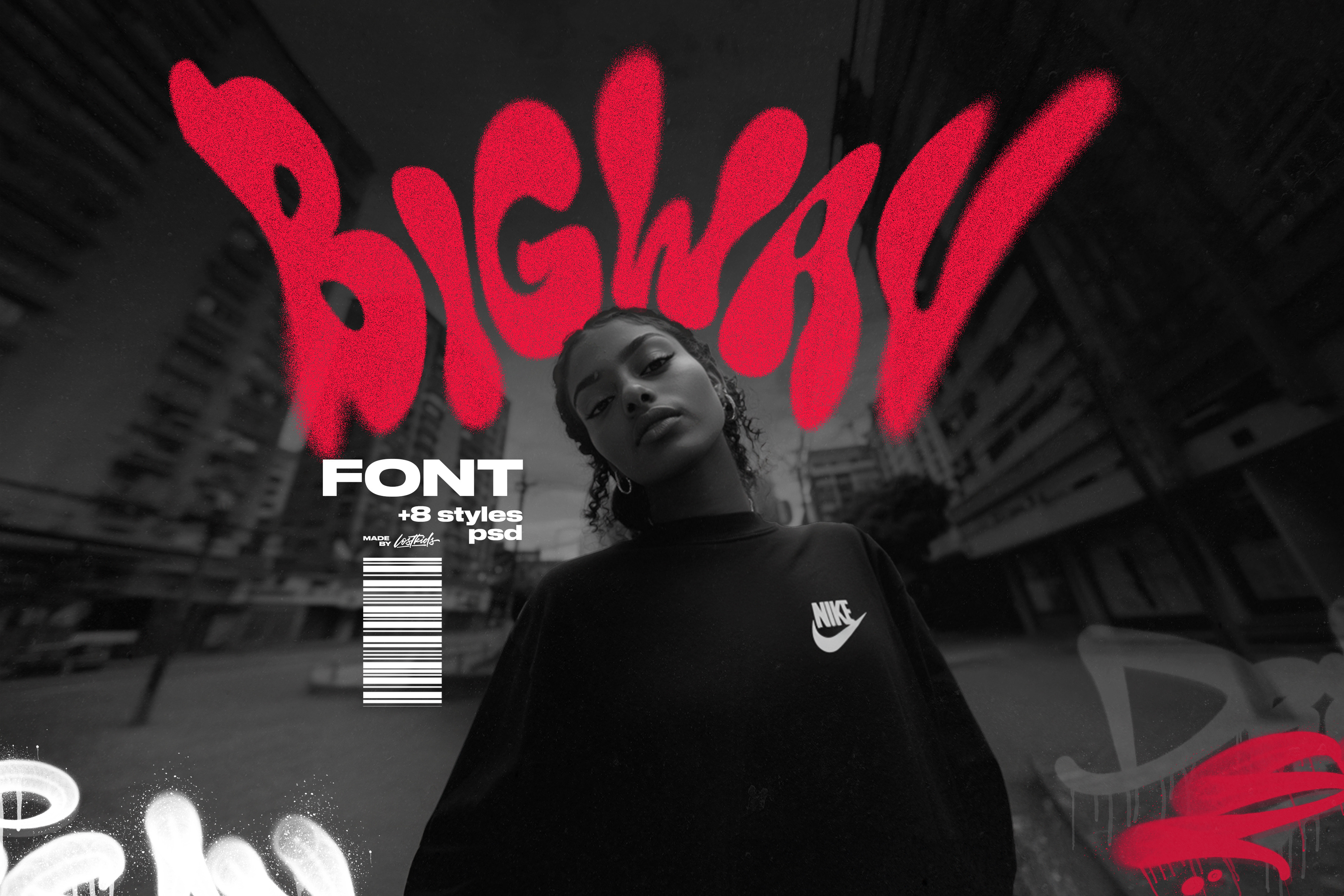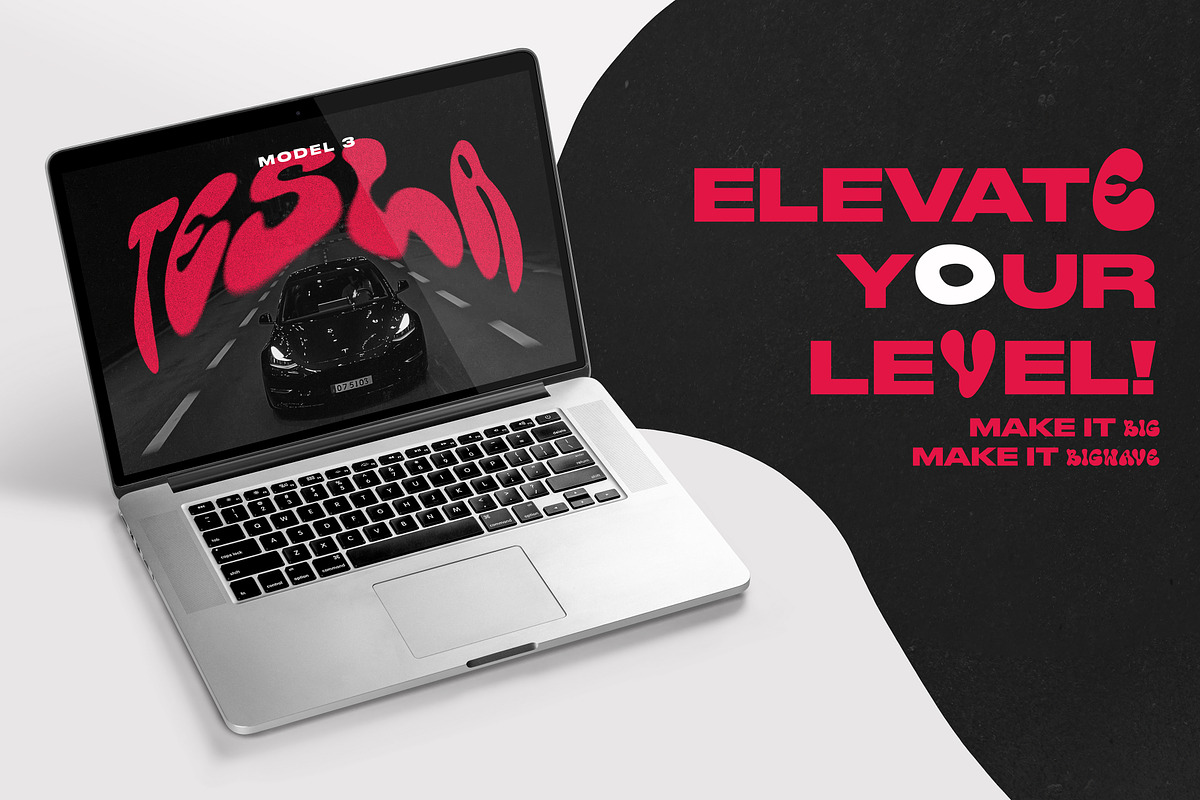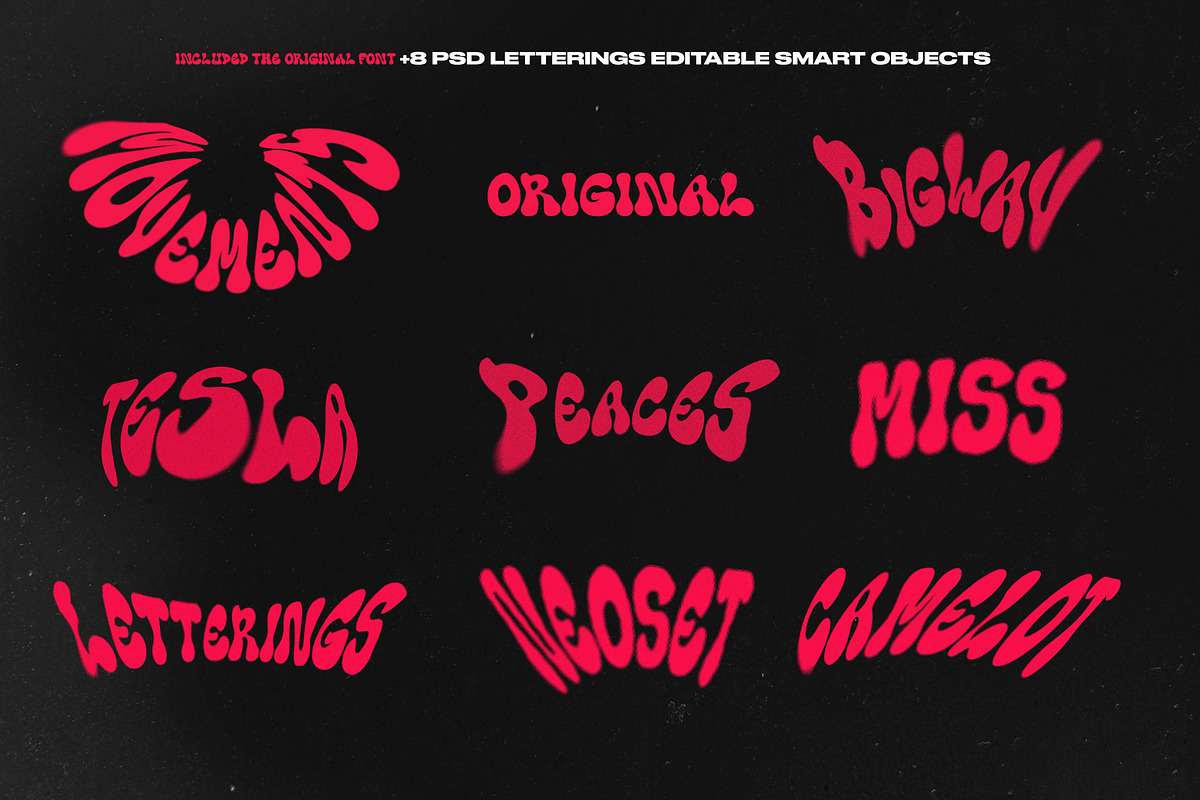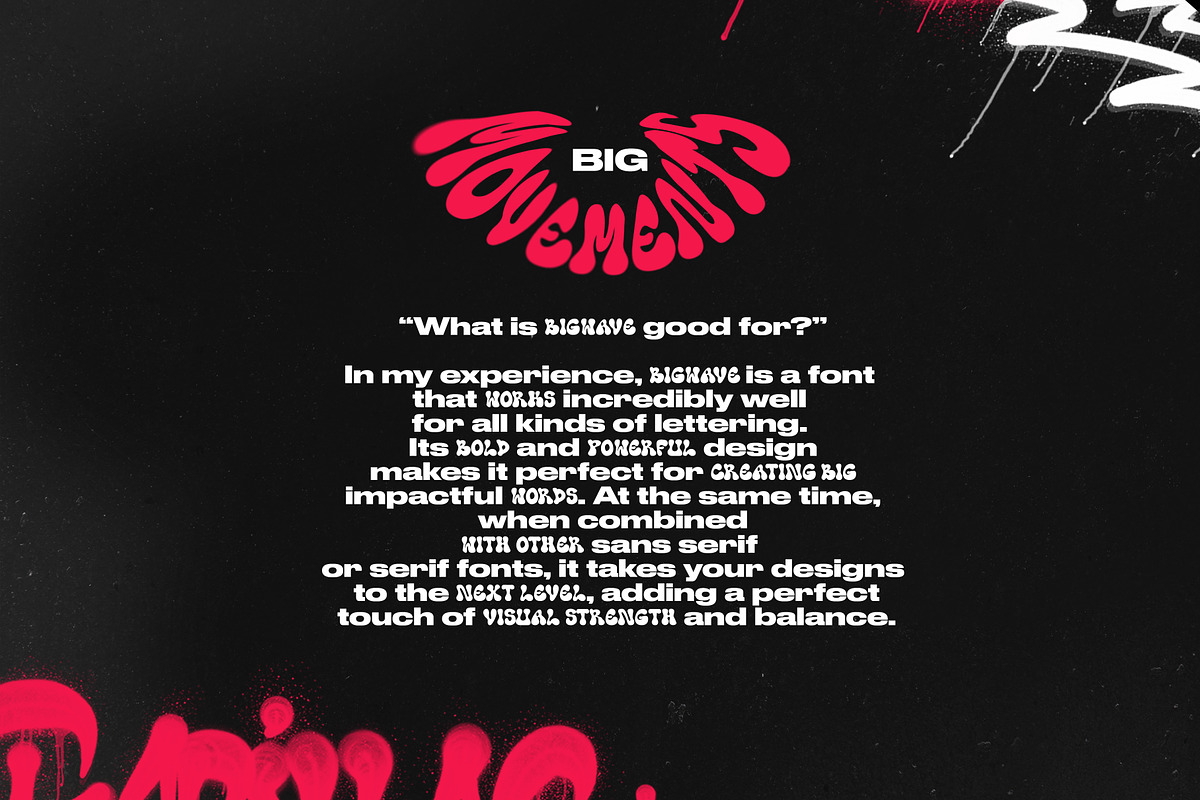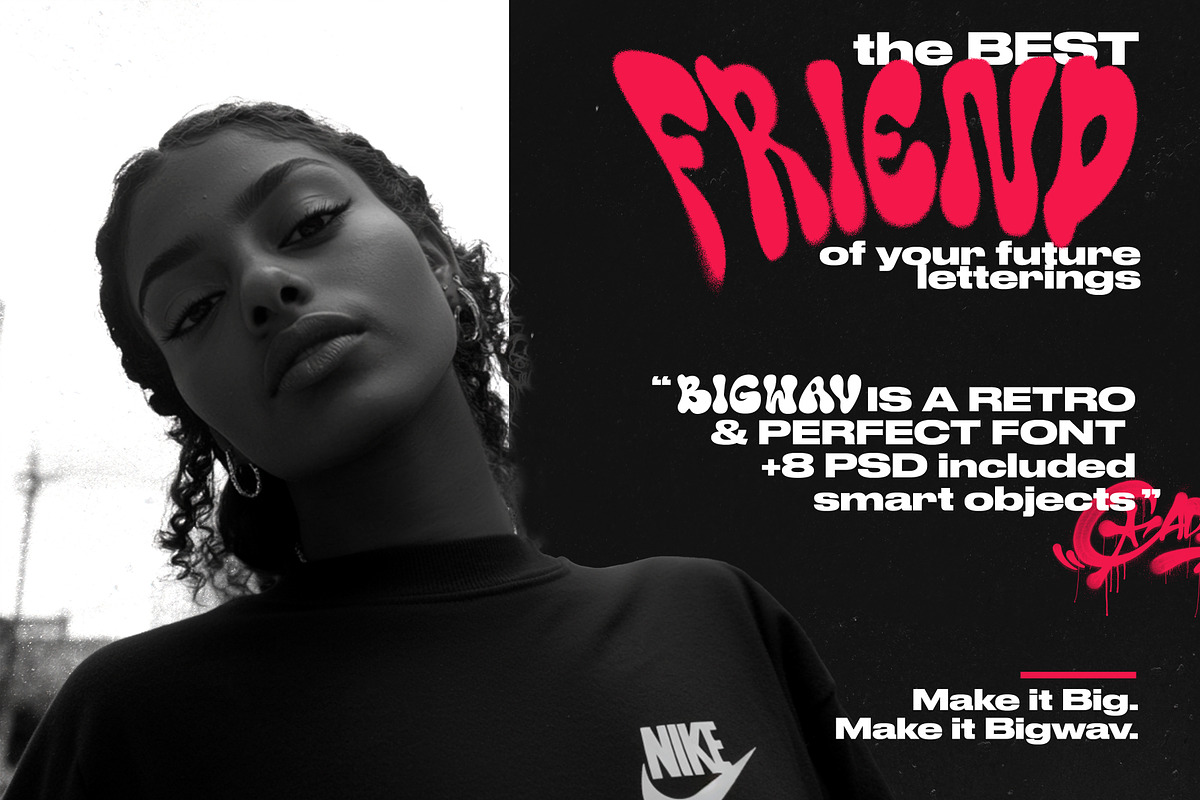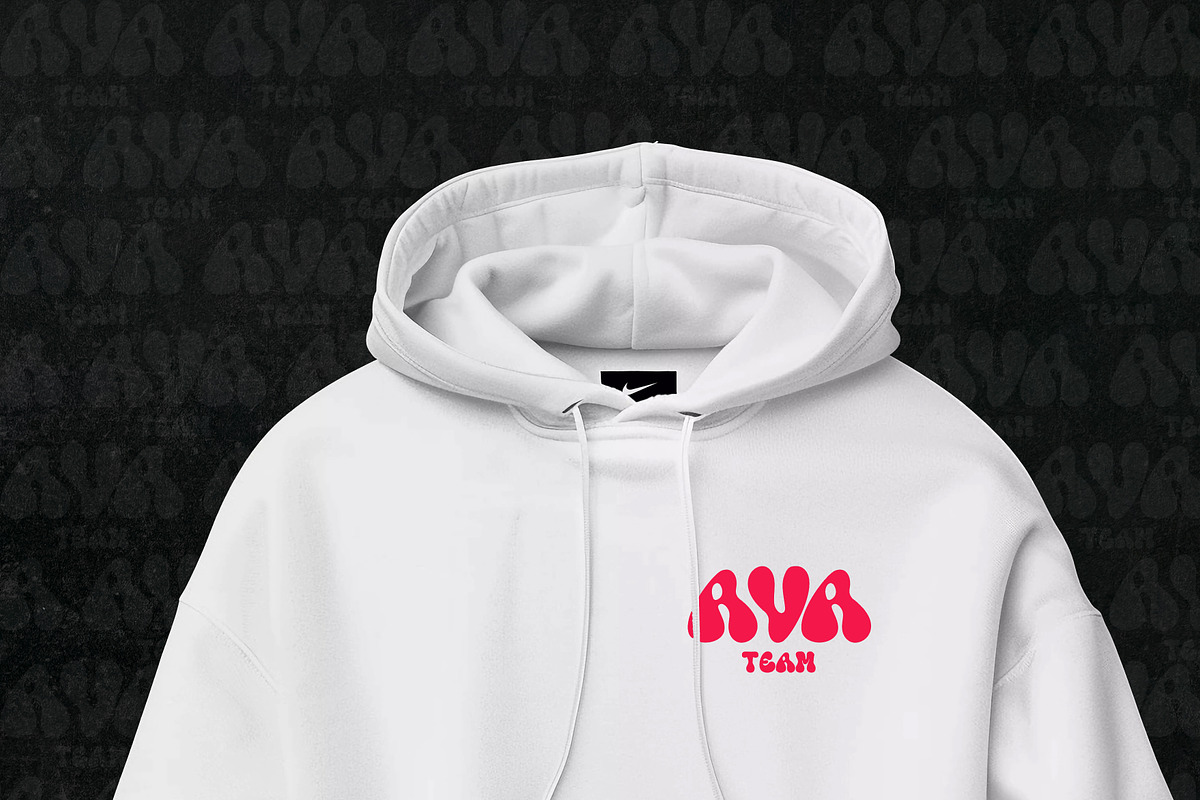
BIGWAV Font + 8 PSD Lettering Effect
Introducing Bigwav, the bold, Groovy and graffiti-inspired font that’s shaking up the design world. Packed with energy and personality, Bigwav style Groovy Font is your secret weapon for creating designs that stop people in their tracks. Don’t settle for ordinary—Bigwav is here to take your projects to the next level with its rebellious, urban edge.
But wait—this isn’t just a font. With 8 exclusive PSD files featuring editable smart objects, you’ll unlock limitless creative possibilities. Style Lettering and very easy custom. From eye-catching headlines to striking branding projects, Bigwav is the tool you need to stand out in a crowded market.
This isn’t just a font—it’s your ticket to creating designs that people can’t ignore. Bigwav is perfect for posters, social media, packaging, apparel, and more. Whether you’re a seasoned designer or just starting out, this is your chance to own a font that’s anything but ordinary.
Make it Big. Make it BigWav